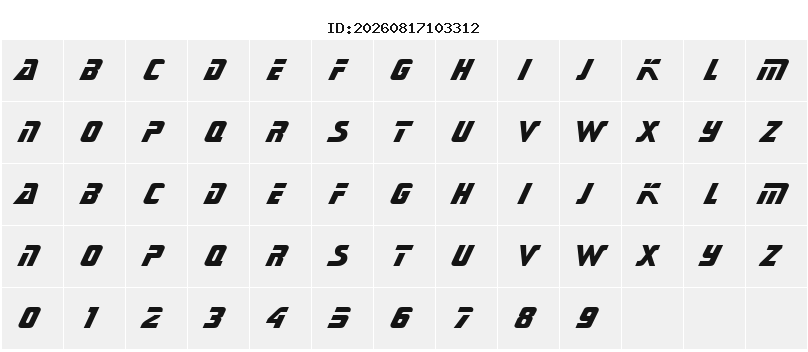
Sonic XBd BT Preview
• Font Name: Sonic XBd BT
• Font Style: Extra Bold
• Font ID: Sonic Extra Bold, Square 051
• Full Font Name: Sonic XBd BT Extra Bold
• PostScript Name: SonicBT-ExtraBold
About Sonic XBd BT.ttf
Sonic XBd BT.ttf is a modern, elegant sans-serif font designed for ultimate readability and visual harmony. Perfect for branding, headlines, web design, and print materials.